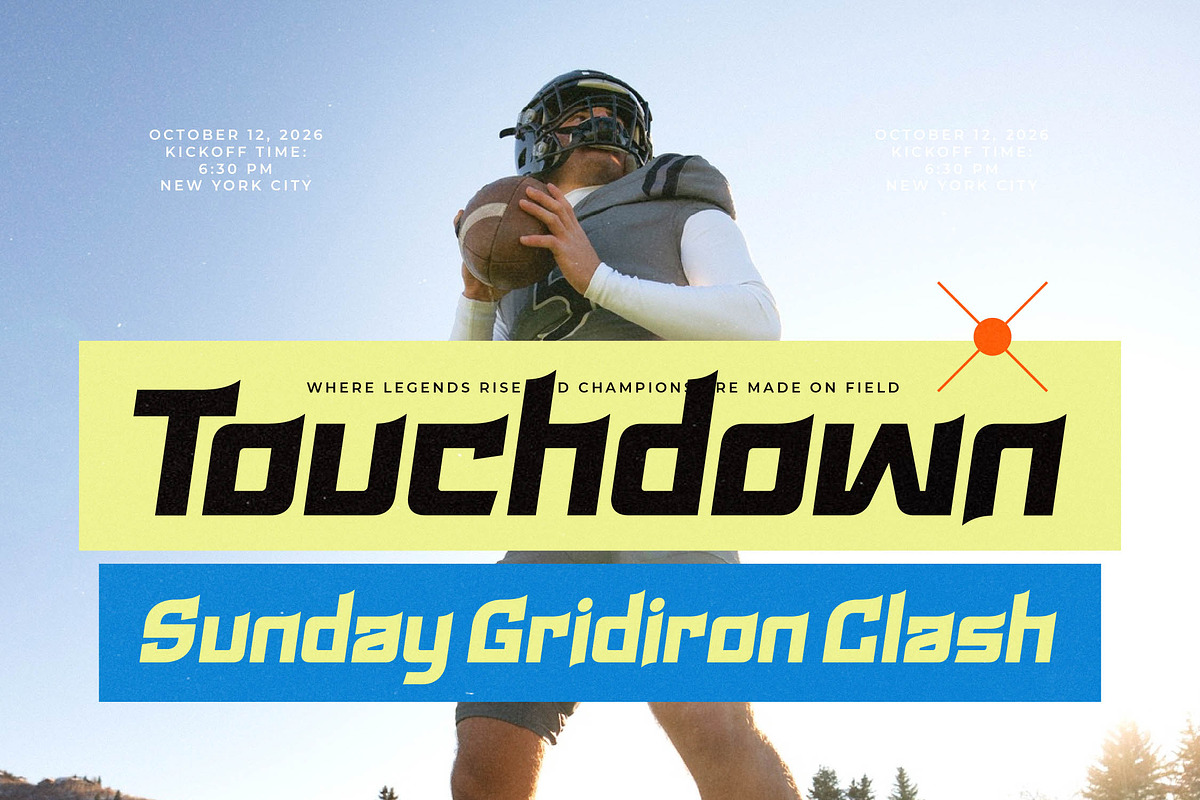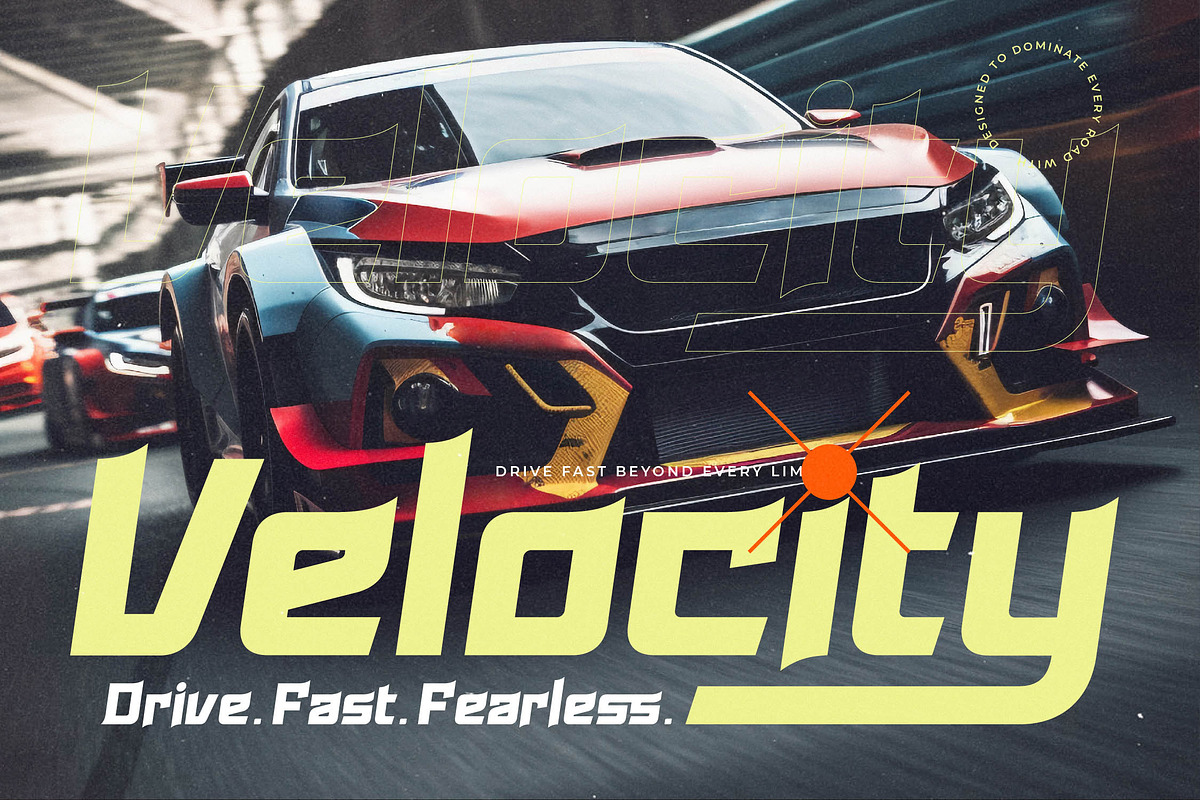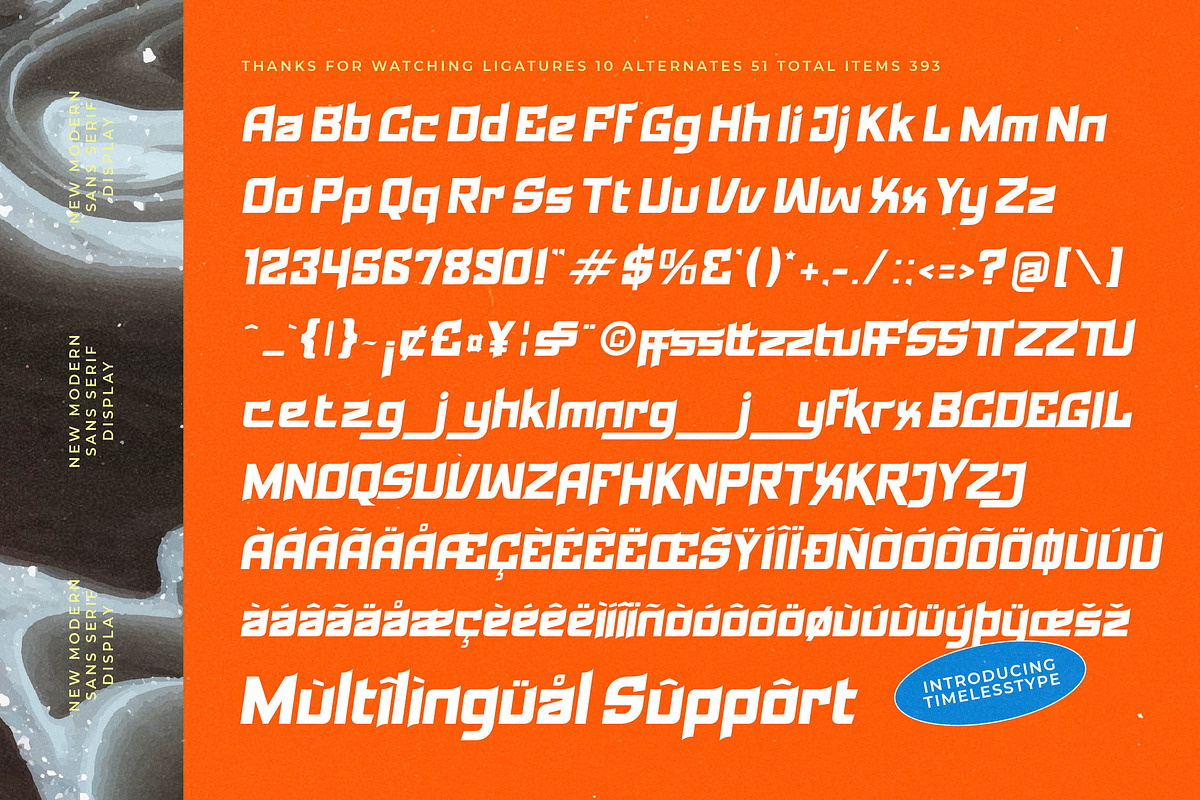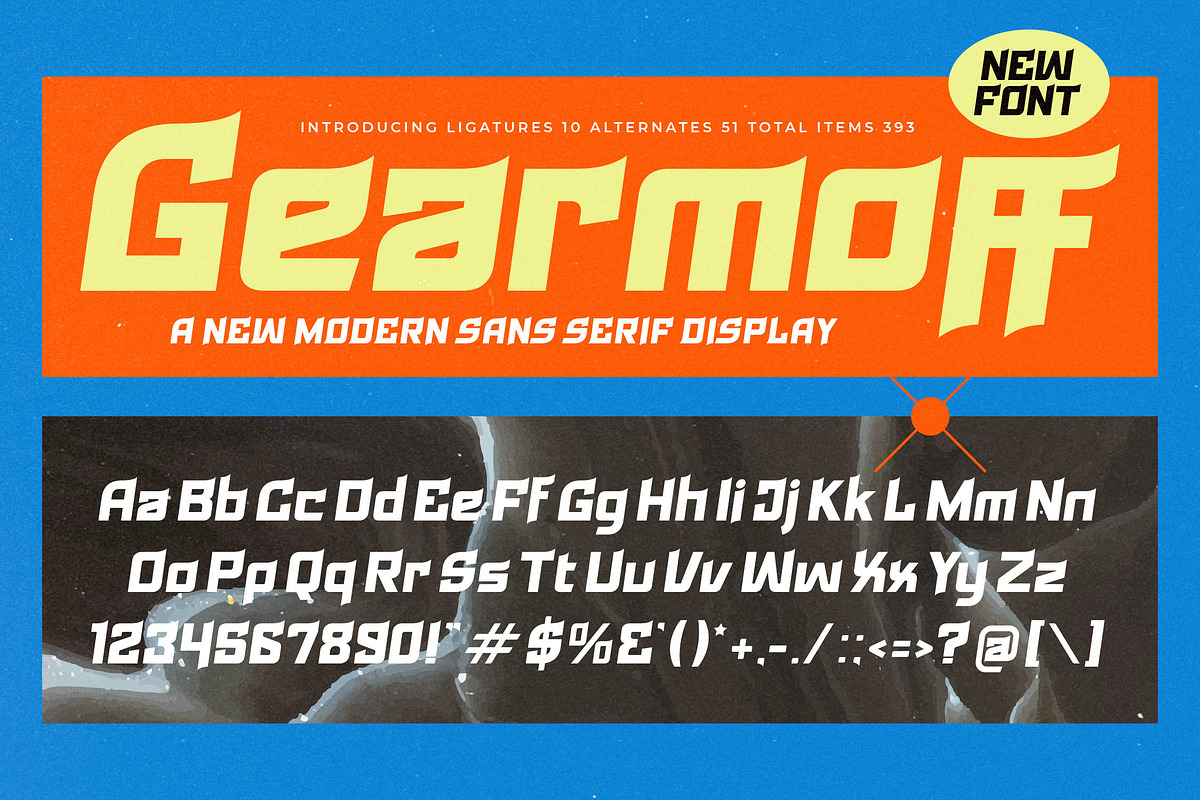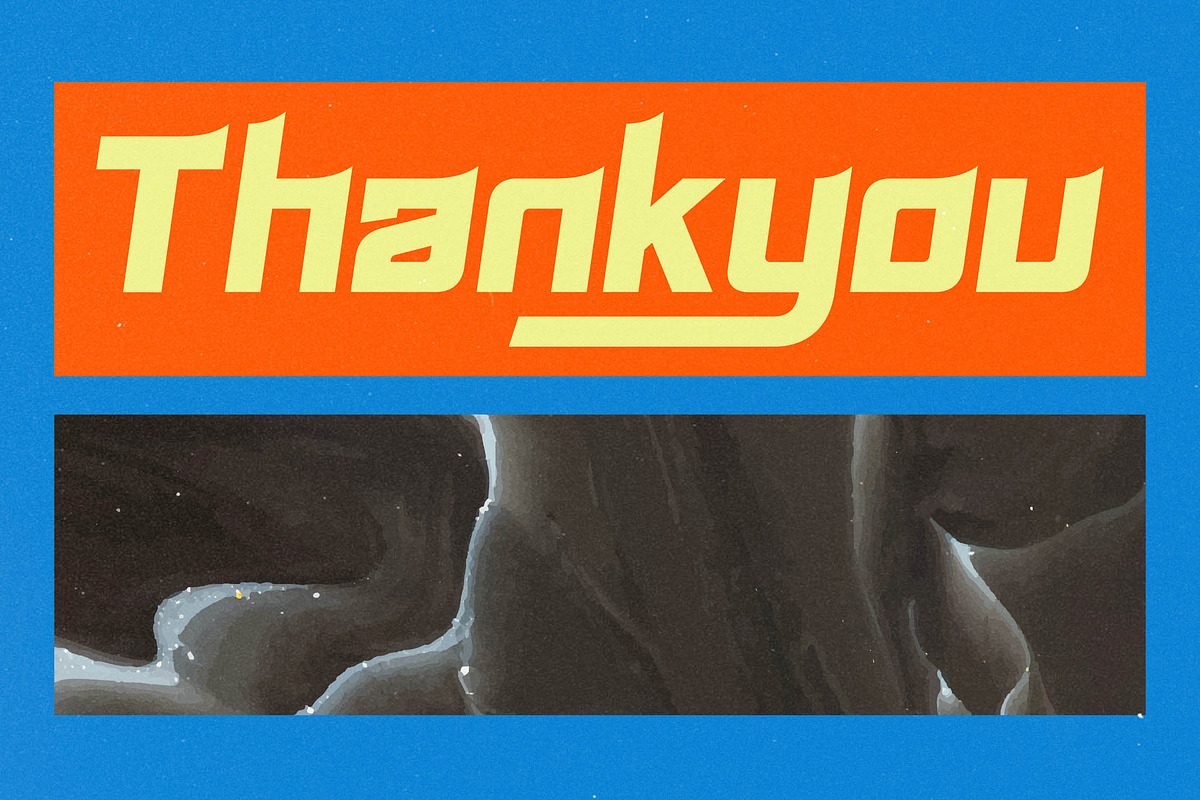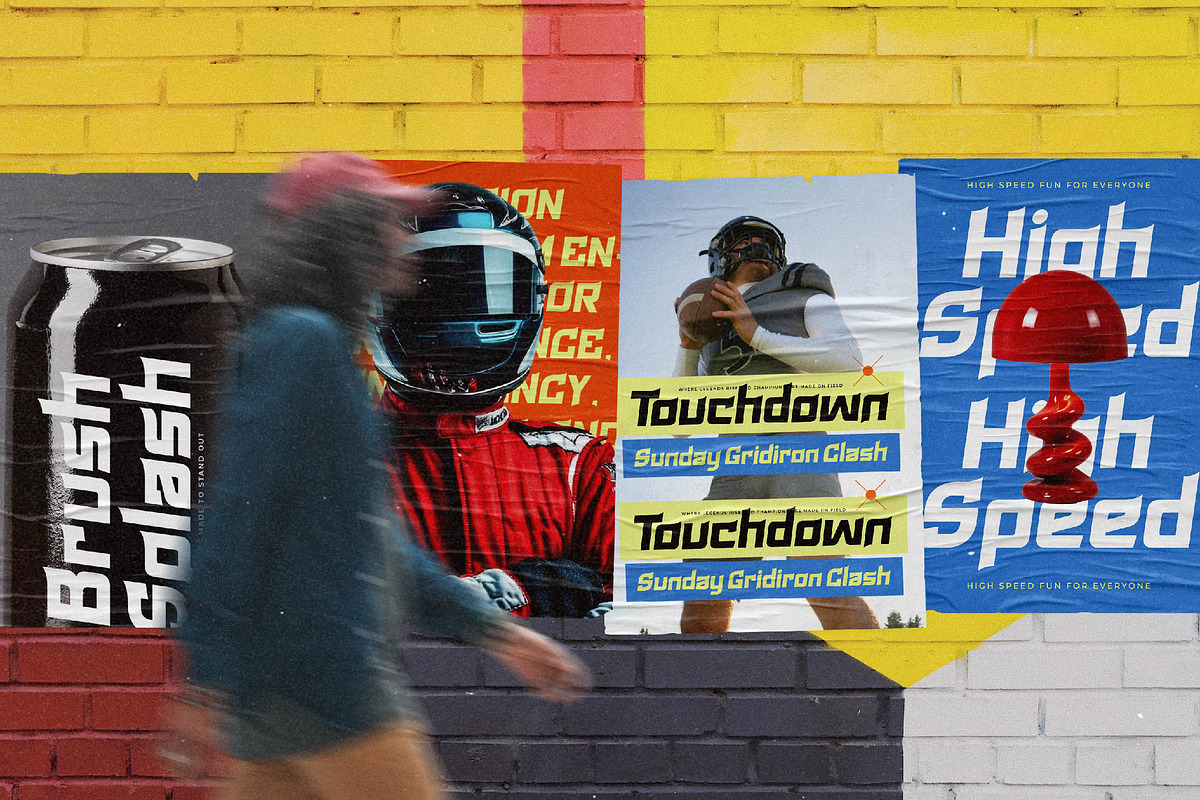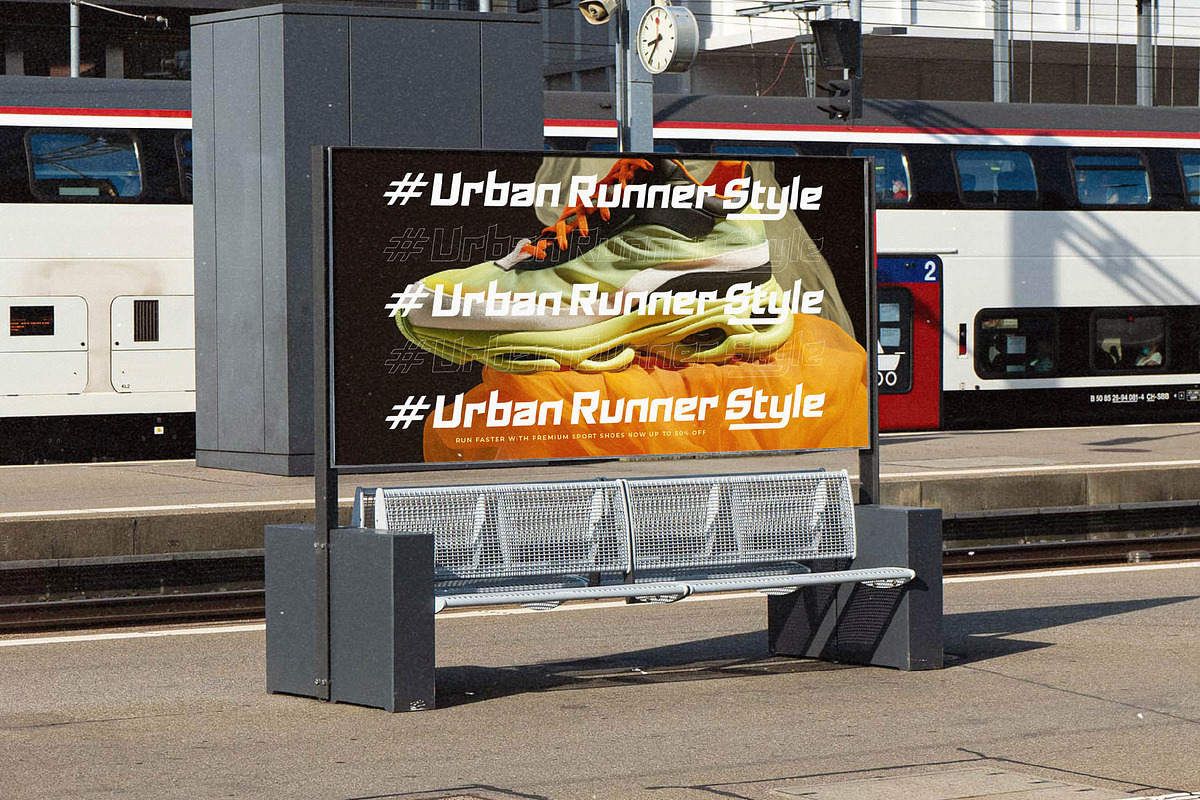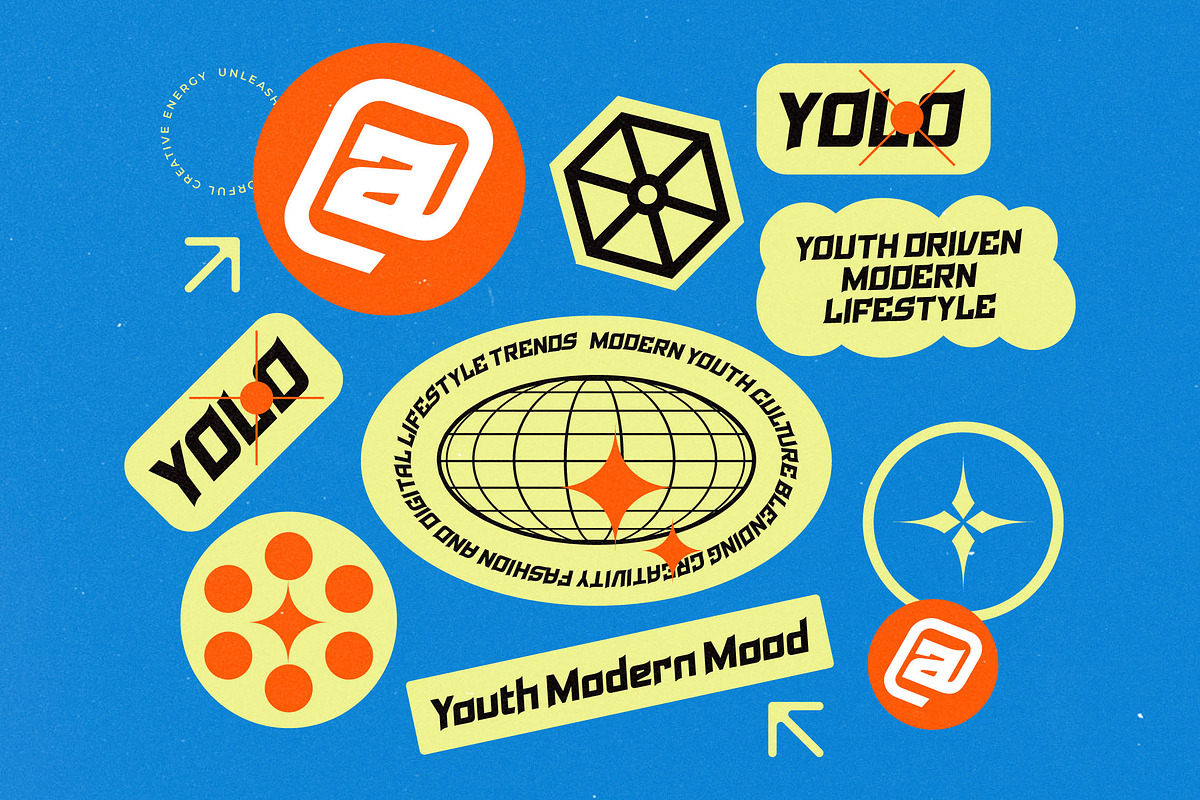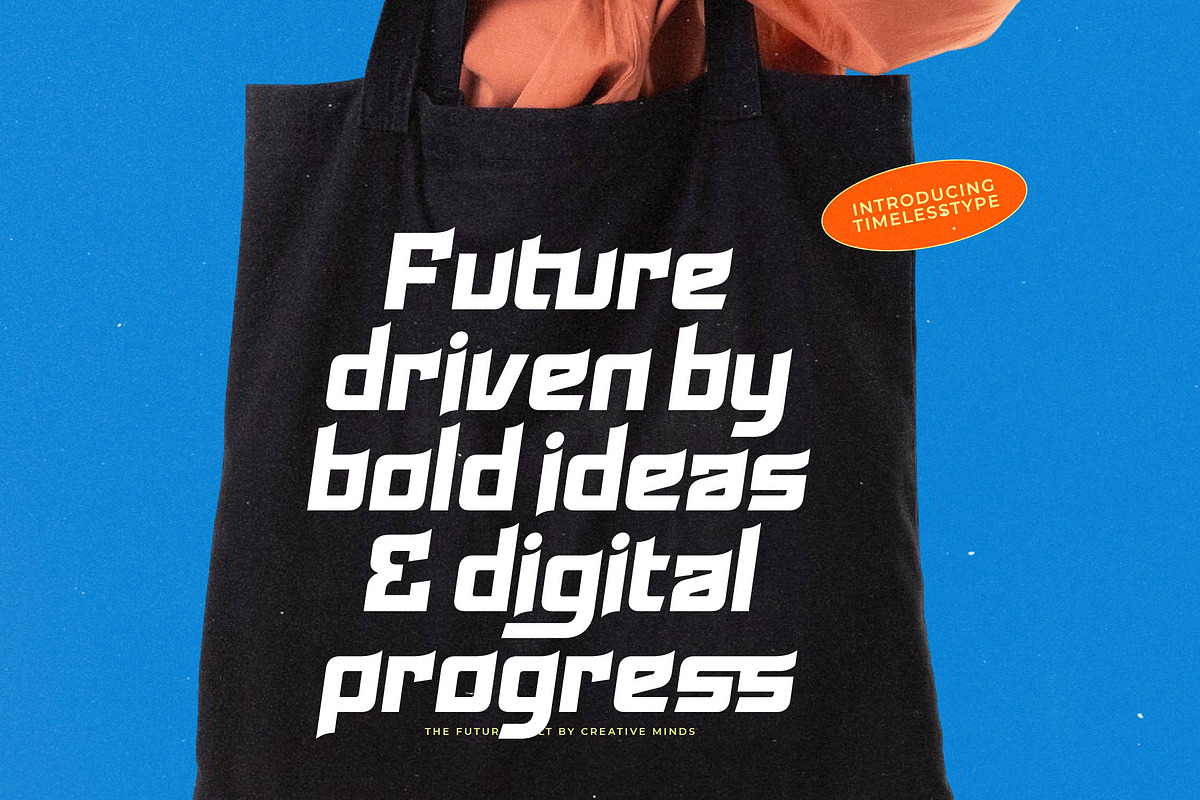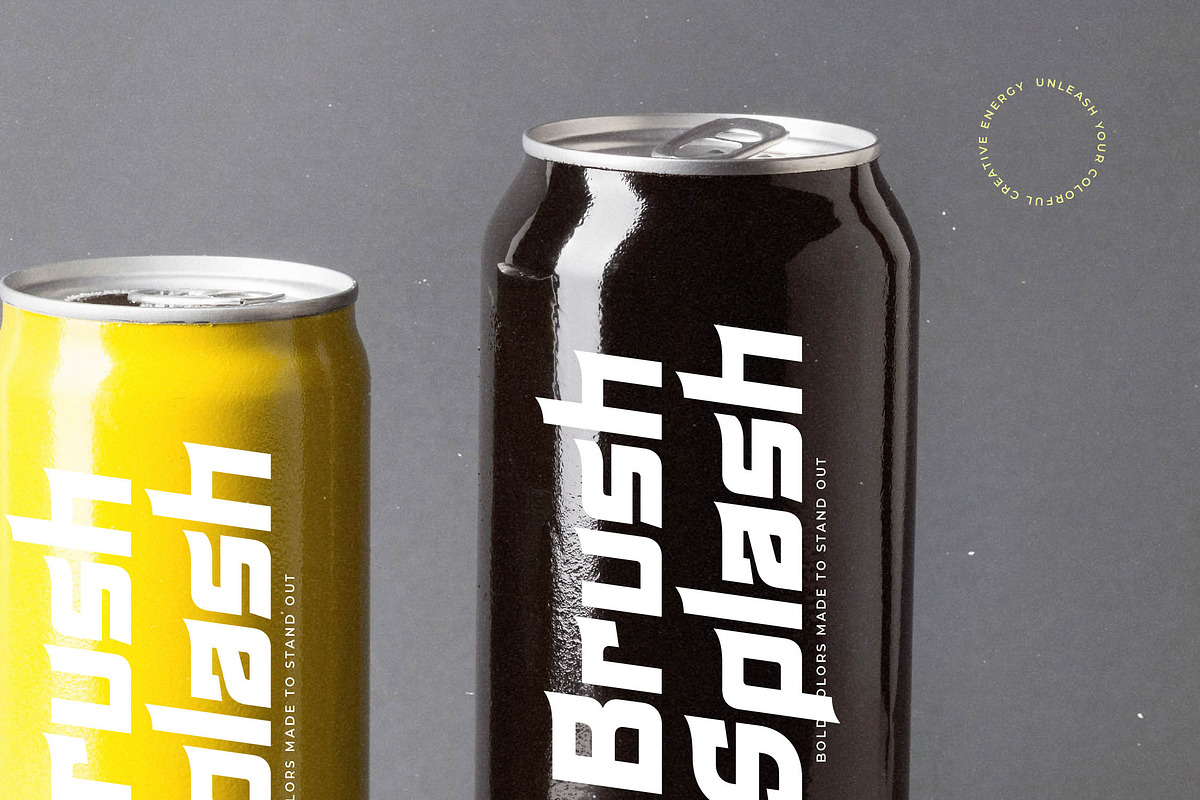
Gearmoff Modern Display Sans Serif
Unleash a sense of unstoppable velocity and geometric precision with Gearmoff, a typeface designed to command immediate attention and drive your creative vision forward. This high-octane display font captures the essence of modern motion and architectural strength in every single glyph.
Inspired by the sleek lines of high-performance automotive engineering and the aggressive energy of competitive professional sports, this typeface was born from a desire to blend speed with absolute sophistication. It reflects a visual world where cutting-edge technology and human ambition collide to create something truly powerful and memorable.
Experience the sheer branding impact of a typeface that functions as a bold modern serif display alternative, offering the weight and presence needed for luxury typography. Its sharp angles and slanted stance provide a high-contrast serif feel within a modern package, making it a premier editorial font for the next generation of visual designers.
As the modern serif trend evolves toward sharper and more aggressive aesthetics, this typeface leads the way in the world of editorial display fonts. It embraces the growing demand for character-driven typography that breaks away from the mundane to deliver a unique and recognizable visual signature.
Perfectly suited for high-impact logo design and comprehensive branding projects, this font excels in editorial layouts that require a loud, confident voice. Whether it is used for innovative product packaging, high-end wedding invitations with a modern twist, or forward-thinking fashion campaigns, it delivers unmatched versatility.
This professional package includes a robust set of ligatures and creative alternates alongside decorative swashes to provide endless variations for your layouts. With full multilingual support and a wide array of international characters, it ensures your message resonates across global markets without any technical limitations.